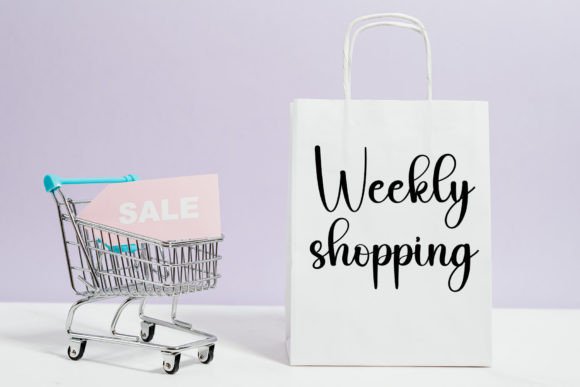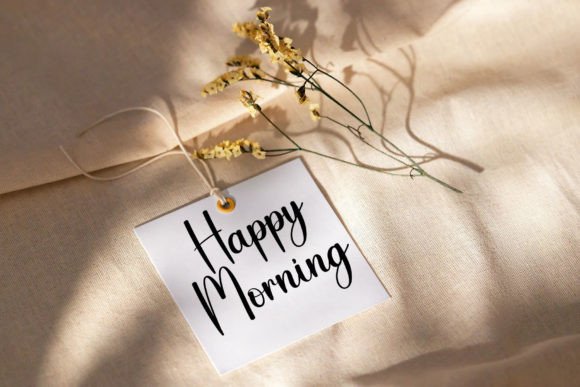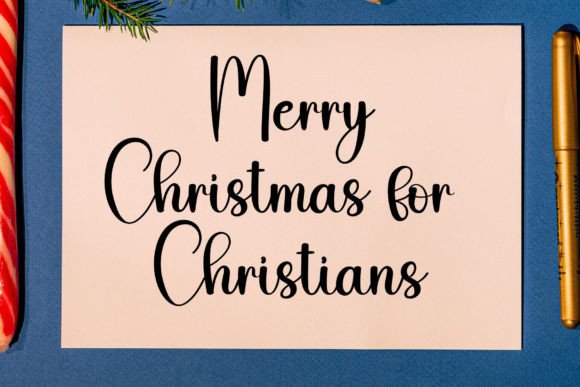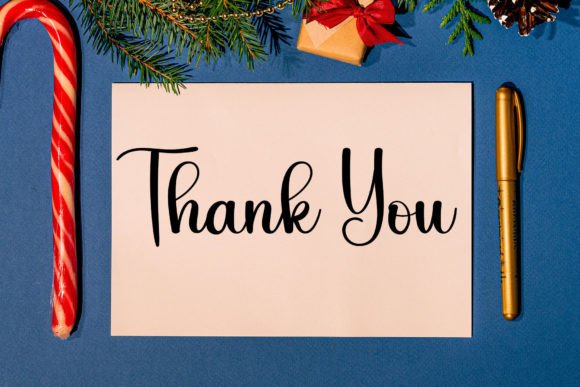
Hello Christmas Font: Add a Touch of Luxury to Your Designs
Are you looking for a font that can add a sweet and beautiful touch to your design projects this holiday season? Look no further than the Hello Christmas font! This stunning handwritten font is perfect for designers and crafters who want to create luxurious and eye-catching designs that will make their audience feel the magic of Christmas.
What Makes Hello Christmas Font So Special?
Hello Christmas is a sweet and beautiful handwritten font that features characters that dance along the baseline, giving it a playful and whimsical feel. This font is perfect for adding a touch of luxury to any design project, whether you’re creating holiday cards, gift tags, or social media graphics. The unique and elegant design of Hello Christmas font makes it stand out from other fonts, and its versatility ensures that it can be used in a wide range of design projects.
Key Features of Hello Christmas Font
- Handwritten font: Hello Christmas font is a beautiful handwritten font that adds a personal touch to any design project.
- Dancing characters: The characters in this font dance along the baseline, giving it a playful and whimsical feel.
- Luxury spark: This font is perfect for adding a touch of luxury to any design project, making it ideal for high-end designs.
- Versatile: Hello Christmas font can be used in a wide range of design projects, from holiday cards to social media graphics.
Hello Christmas font is perfect for designers and crafters who want to create beautiful and unique designs that will make their audience feel the magic of Christmas. Whether you’re creating holiday cards, gift tags, or social media graphics, this font is sure to add a touch of luxury and whimsy to your designs. With Hello Christmas font, you can create designs that are both elegant and playful, making it perfect for a wide range of design projects.
- Pair it with a simple background: Hello Christmas font is a statement font, so pair it with a simple background to make it stand out.
- Use it for headings: This font is perfect for headings, such as titles and subtitles.
- Add some sparkle: Add some sparkle to your designs by using Hello Christmas font in combination with glitter or other festive graphics.
Get Creative with Hello Christmas Font
Hello Christmas font is a versatile font that can be used in a wide range of design projects. Here are a few ideas to get you started:
- Holiday cards: Create beautiful and unique holiday cards using Hello Christmas font.
- Gift tags: Add a touch of luxury to your gift tags with Hello Christmas font.
- Social media graphics: Create eye-catching social media graphics using Hello Christmas font.
- Party invitations: Create festive and elegant party invitations using Hello Christmas font.